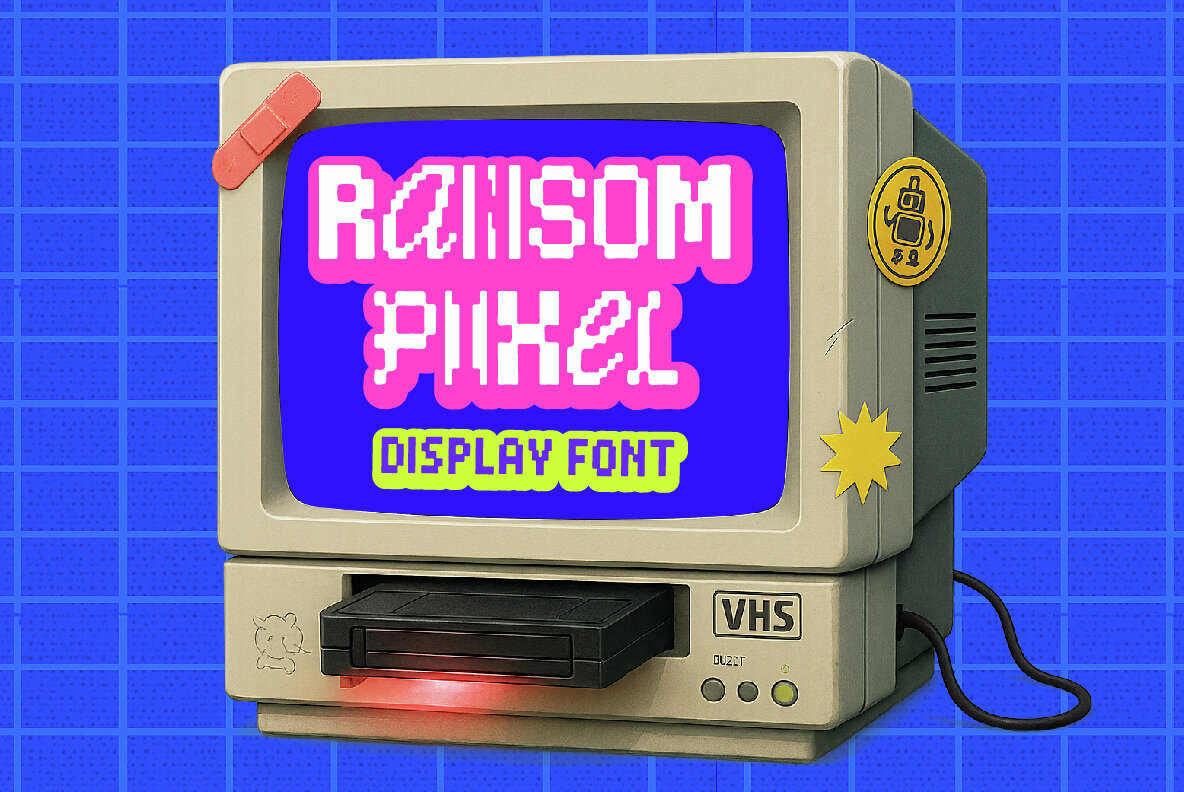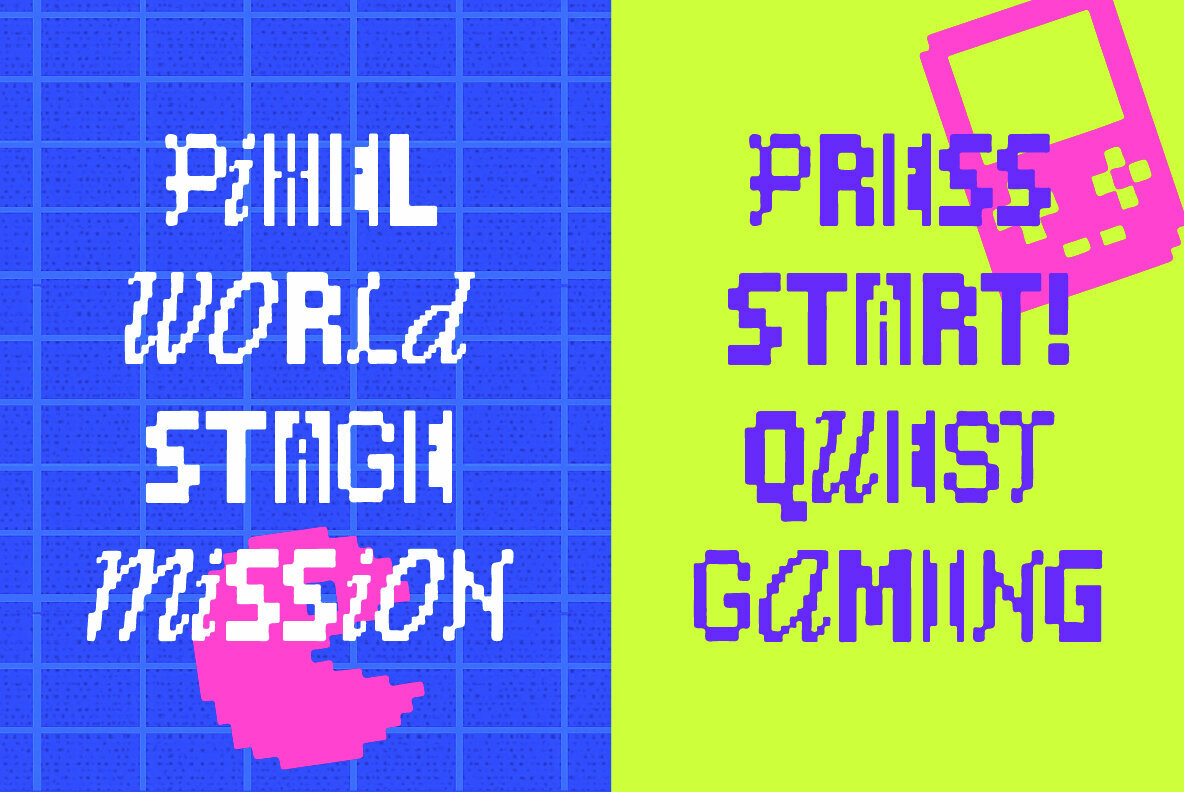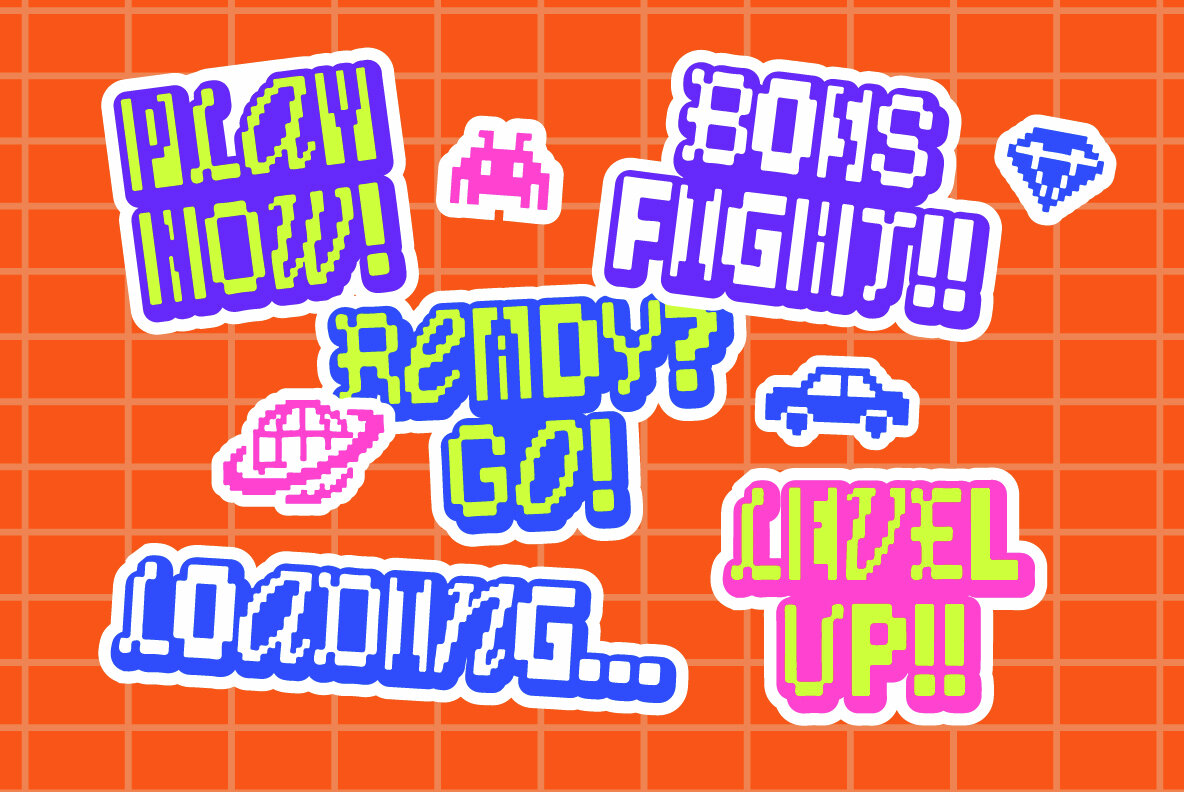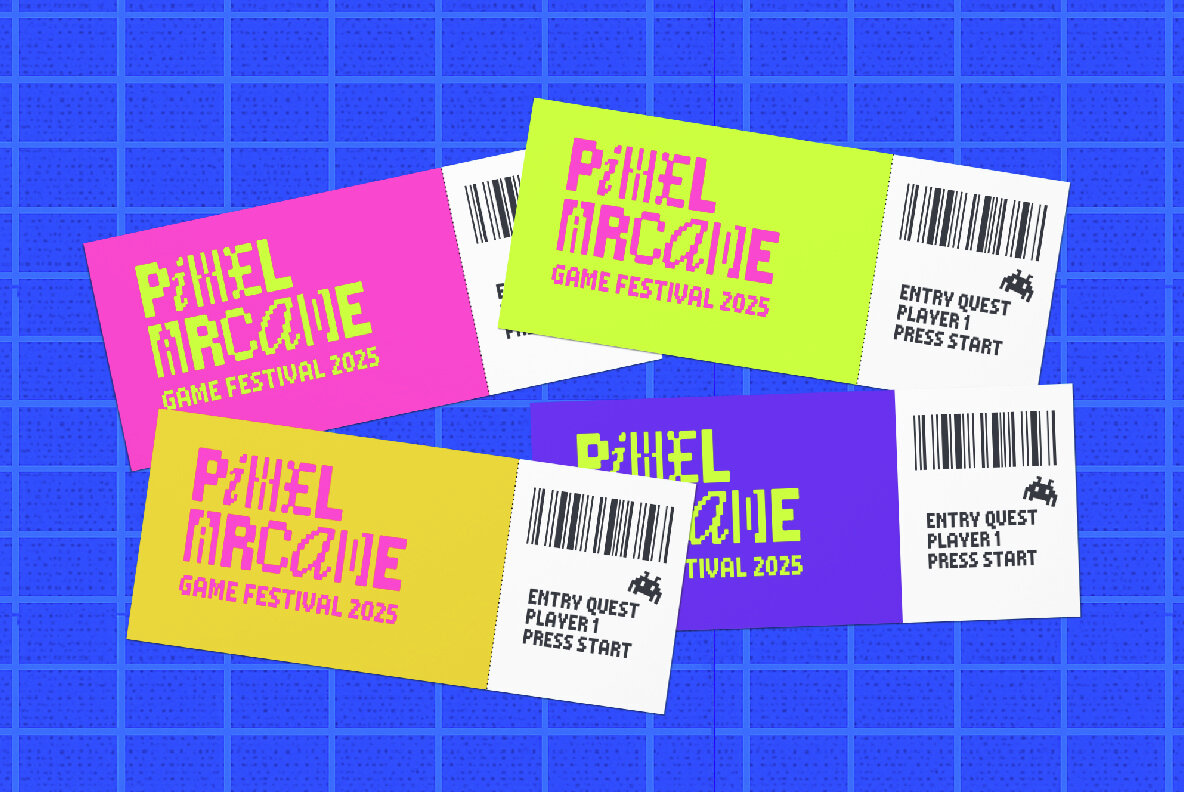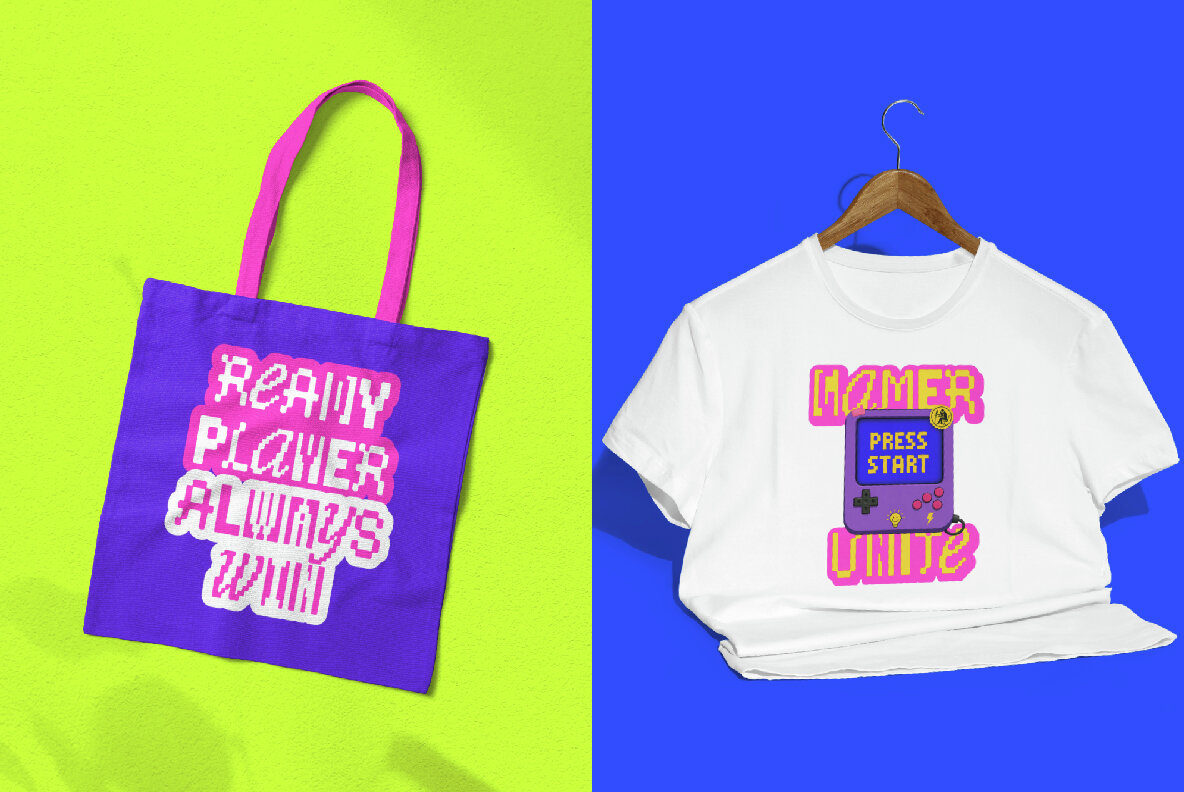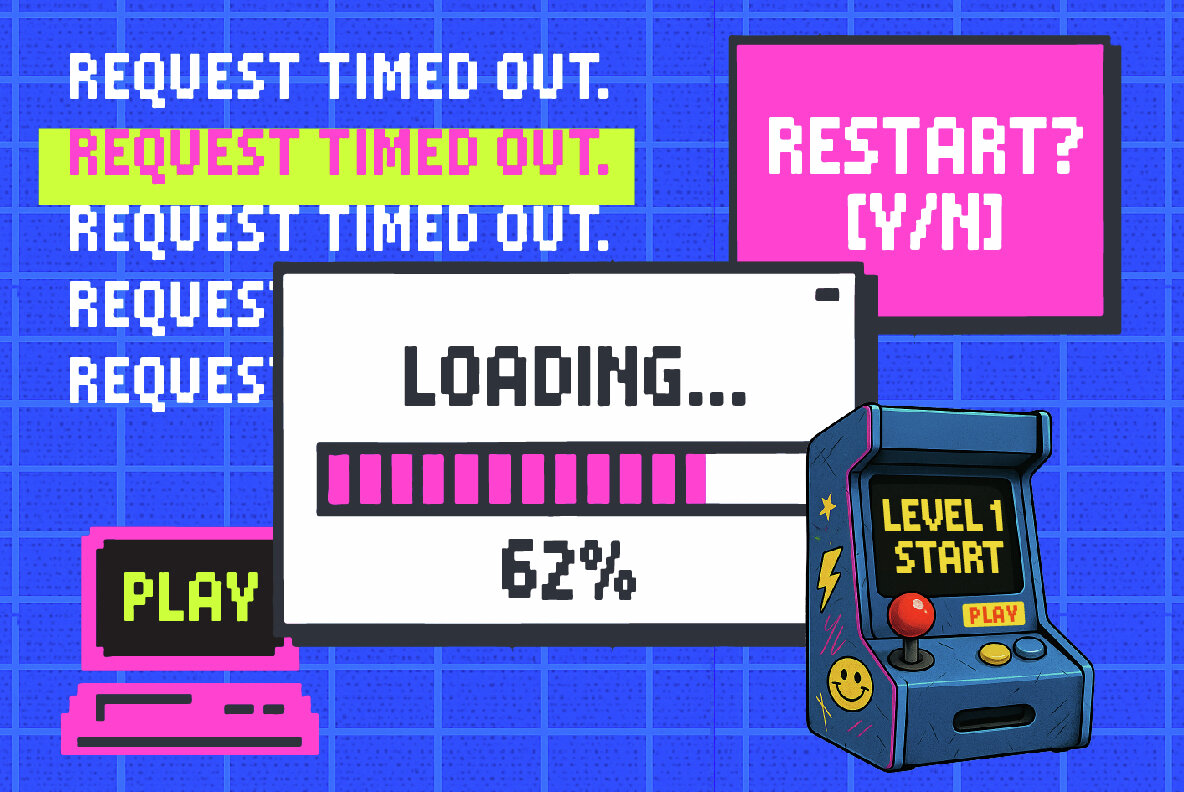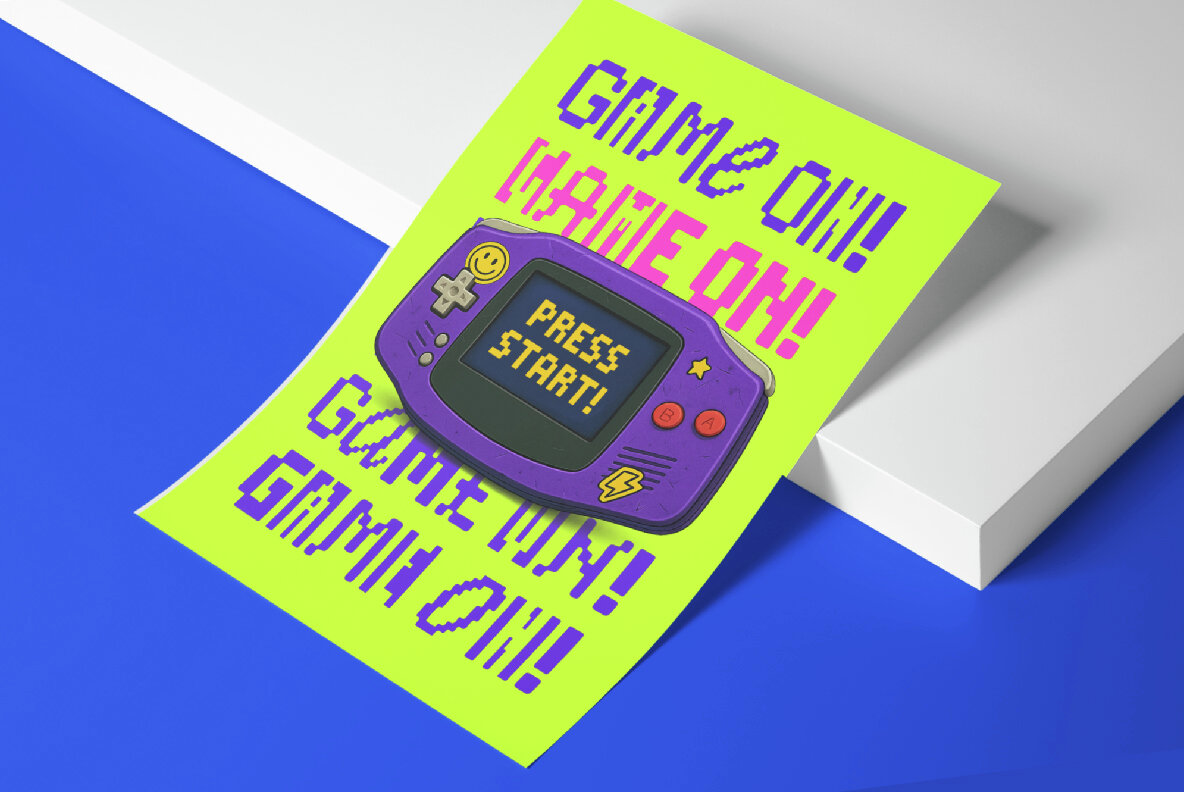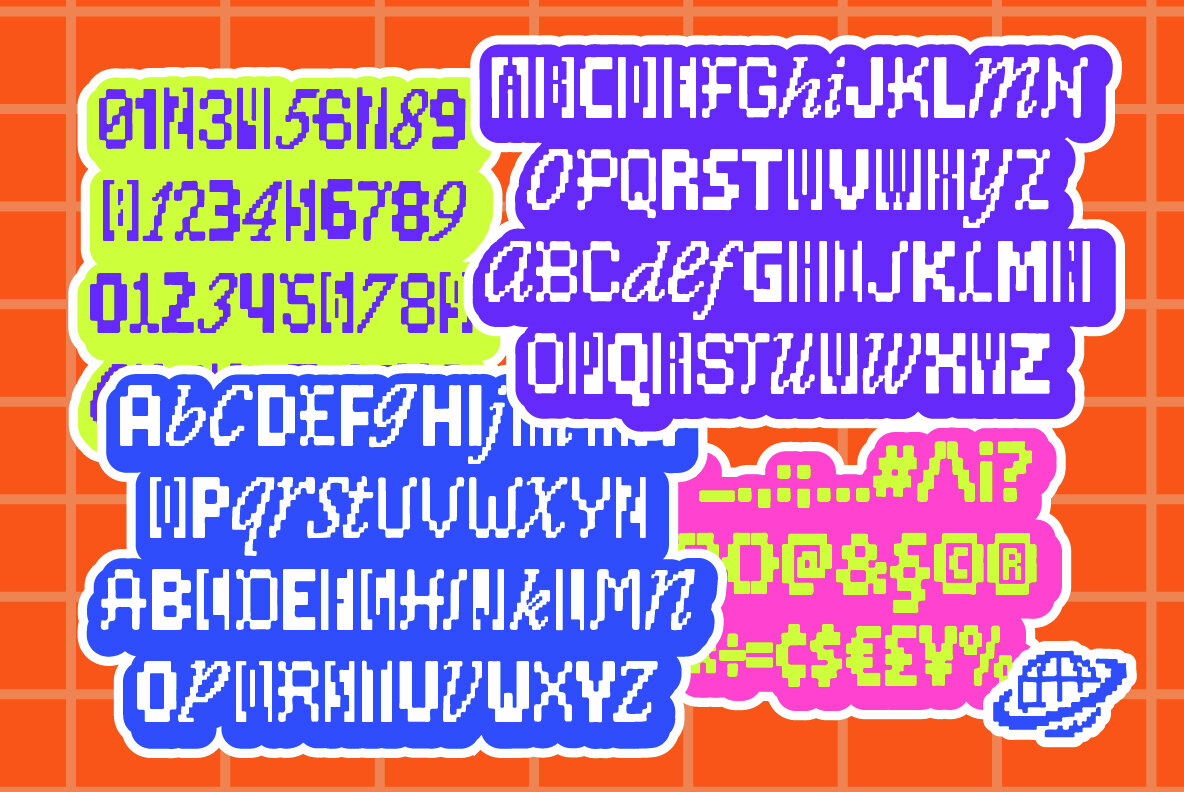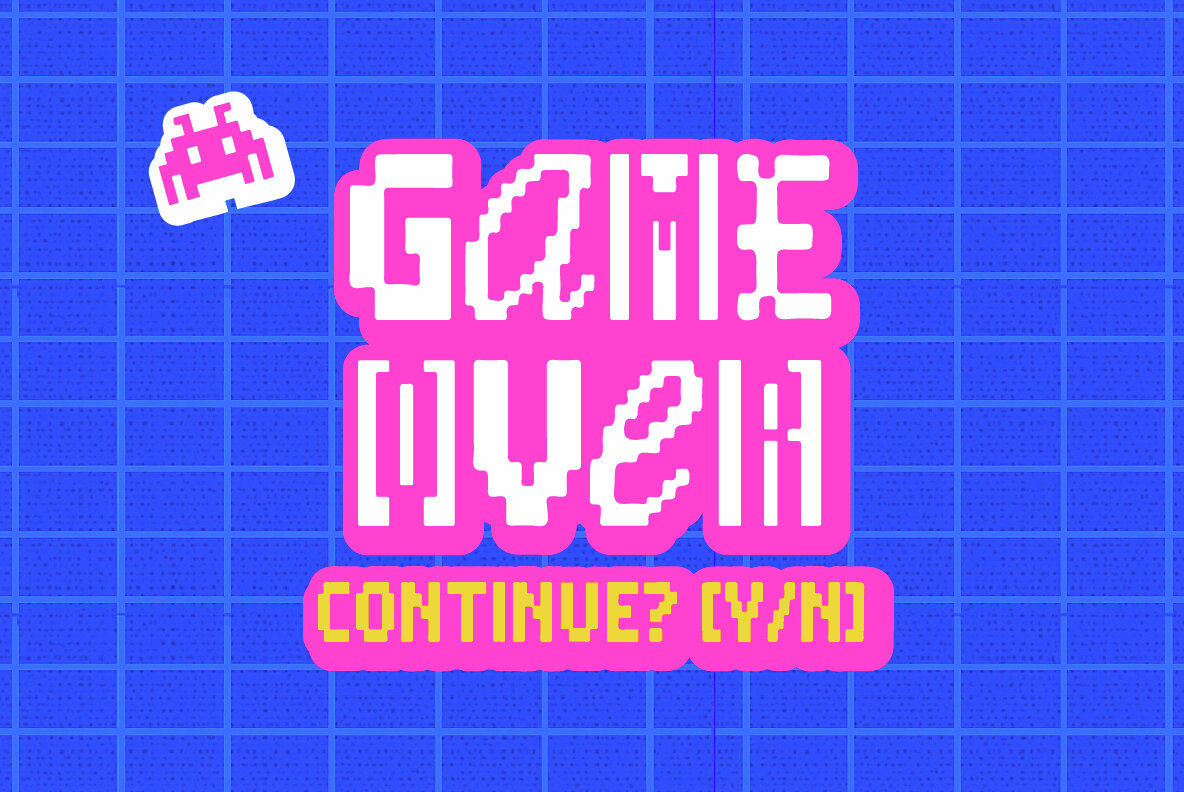
Ransom Pixel Font
Ransom Pixel
Immerse yourself in the charm of nostalgic gaming with Ransom Pixel, a typeface that echoes the vibrant spirit of retro games and daring branding. Drawing inspiration from the classic ransom note aesthetic, this font offers designers an array of four pixel-styled variations, perfect for creating dynamic and eye-catching typographic statements. Whether you're designing for gaming events, crafting indie titles, or adding a nostalgic touch to merchandise, Ransom Pixel seamlessly marries digital nostalgia with a modern twist.Ransom Pixel: A Bold Display Typeface for Retro Enthusiasts